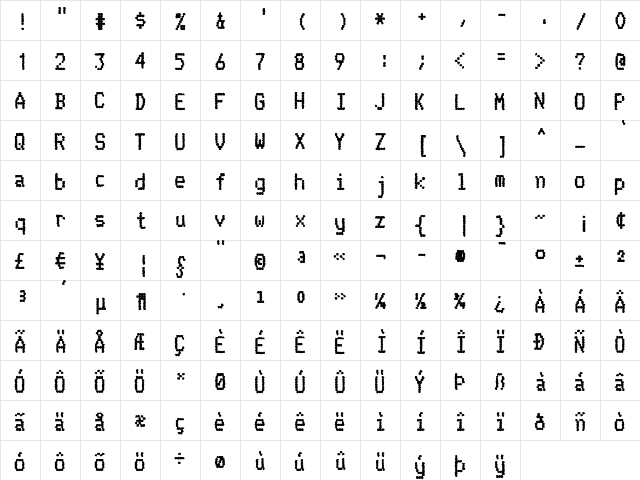
Telidon Ink Hv Regular Font Preview
Telidon Ink Hv Regular
Telidon Ink Hv Regular Font Details
Design Context for Telidon Ink Hv Typeface
Telidon Ink Hv is a composed and adaptable typeface that performs quietly and consistently across a wide range of design contexts.
Pro Tip: Use Telidon Ink Hv in both headline and body roles to test its range before committing to a single application.